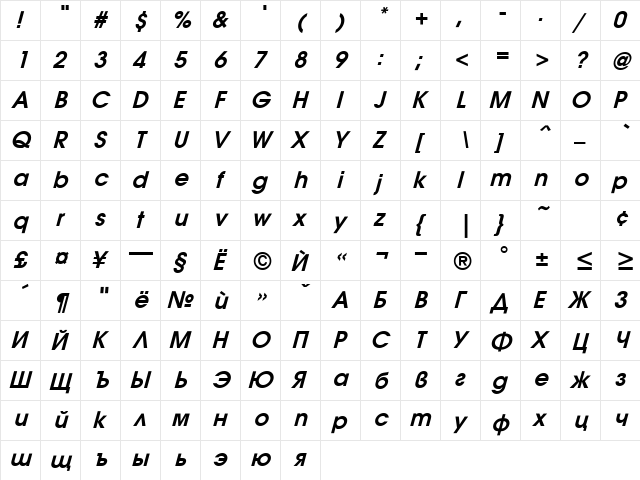
AvantiB Bold Italic
Design Context for AvantiB Typeface
AvantiB offers clean, dependable letterforms without strong stylistic allegiance, making it a practical choice for designers who need flexibility. The slanted form adds forward momentum and visual energy. Its bold stroke weight gives it real presence on the page.
Pro Tip: Use AvantiB for emphasis, pull quotes, and subheadings where its slanted energy can add rhythm to the layout.